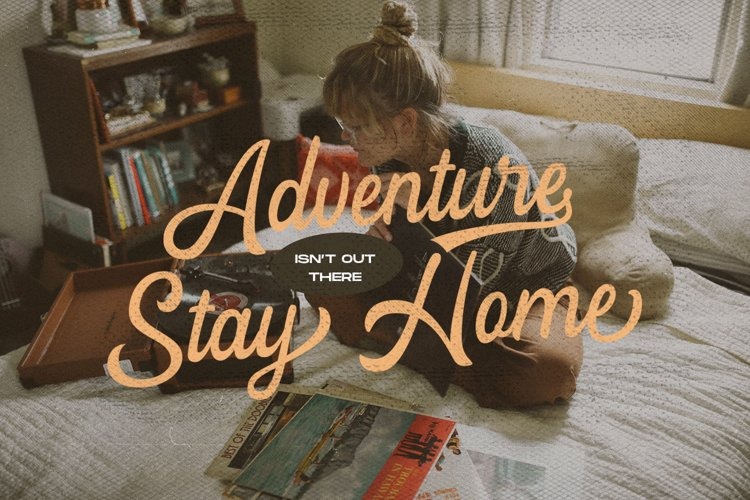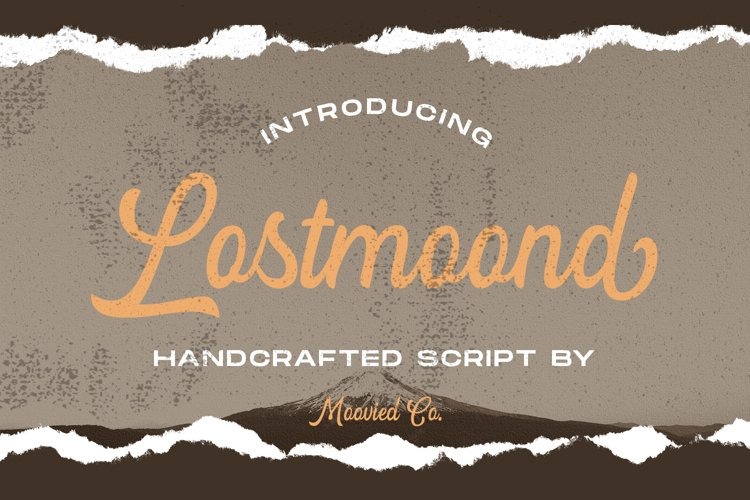
Lostmoond Font
Lostmoond Script Font
It’s a gorgeous and bold hand-drawn typeface, crafted to give your headlines and logotype projects a retro touch. Its unique flow and style makes it perfect to use for prints, logos, logos & branding, invitations, stationery, wedding designs, social media posts, advertisements, product packaging, product designs, labels, photography, watermarks, special events or anything.